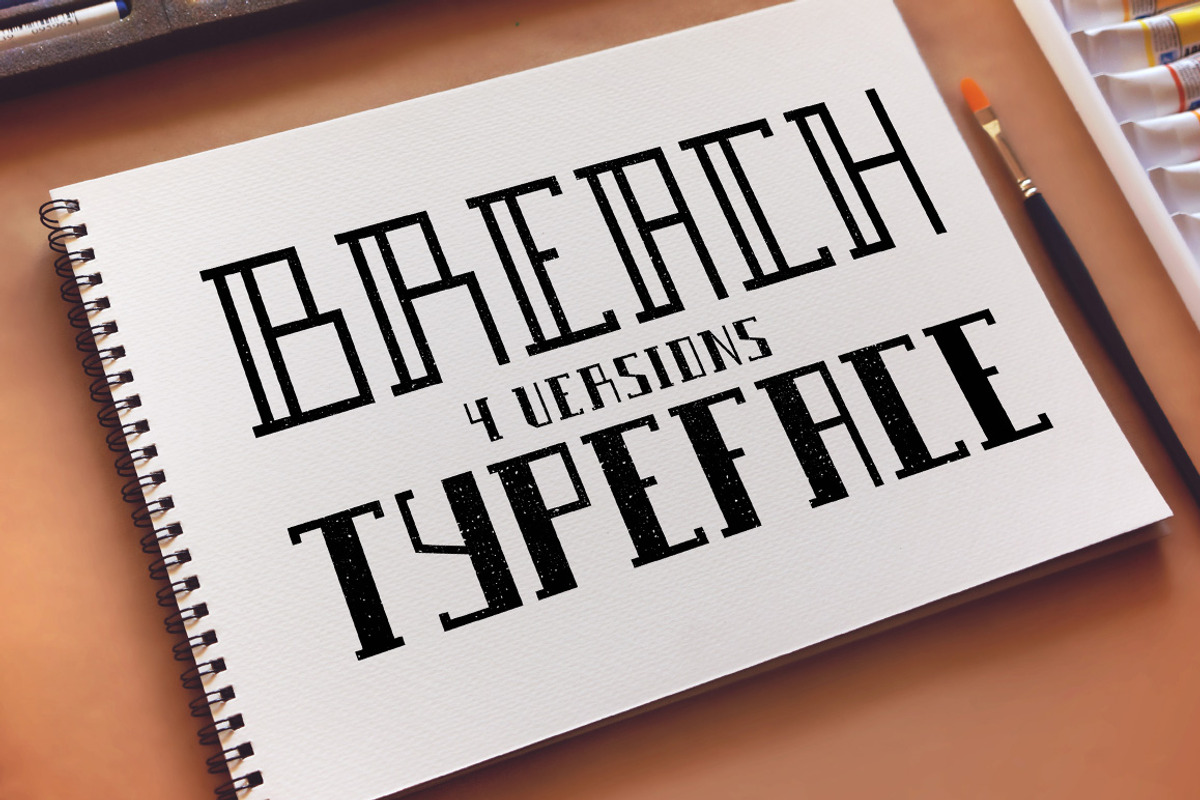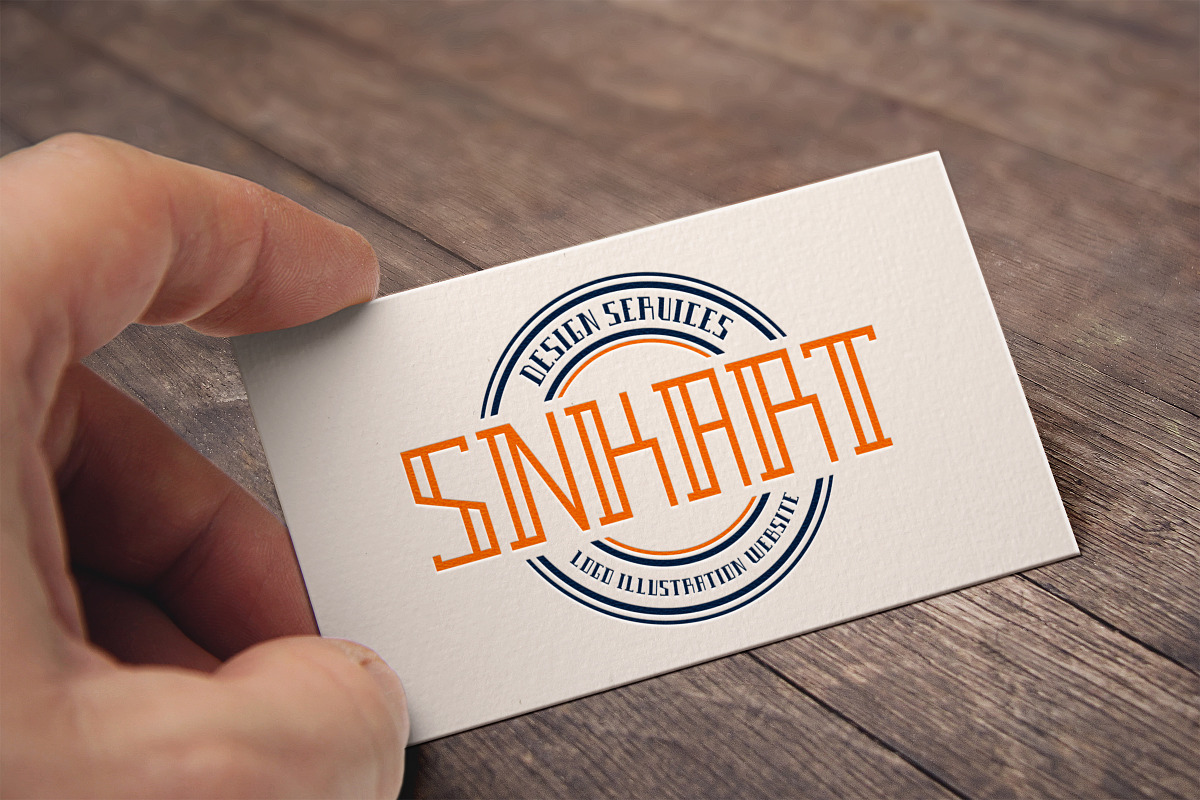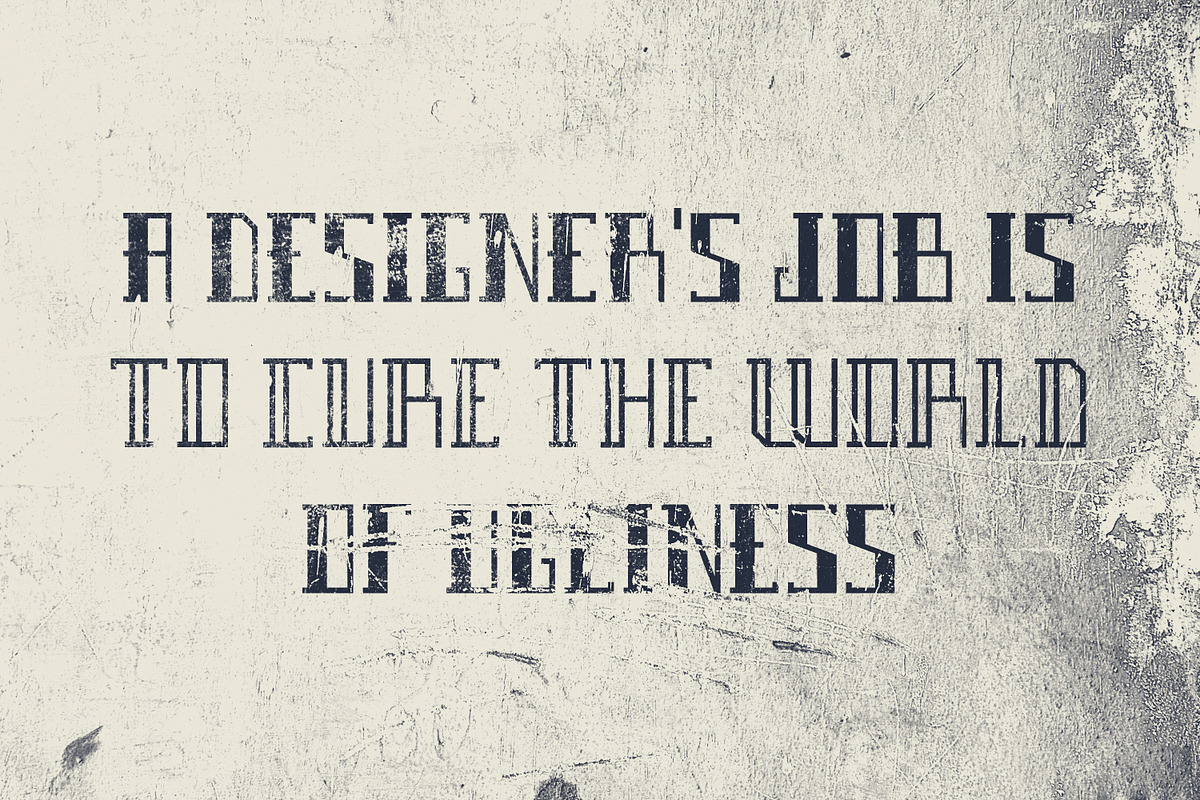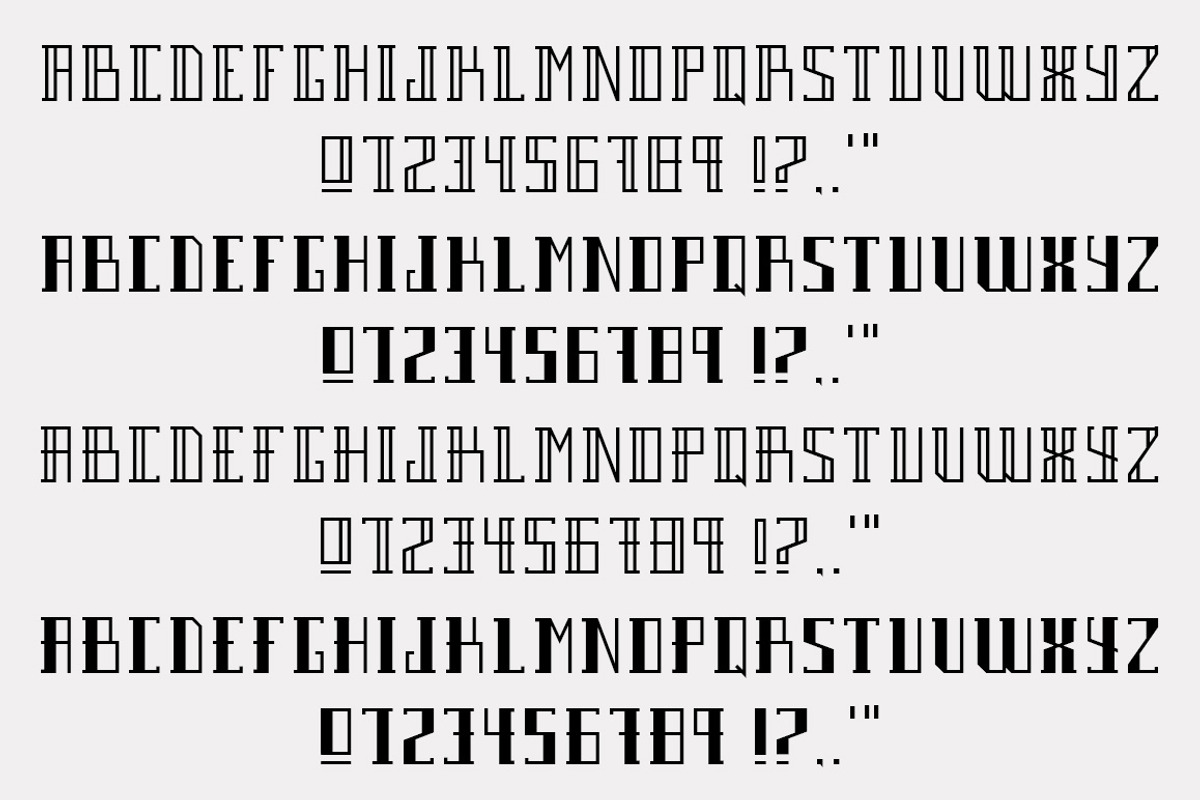
Breach Typeface
Breach Typeface by SNK's is a font selected for branding, posters, packaging, typography.
- The font has uppercase letters, numbers and some of the base use glyphs You will get: 4 .ttf files.
Breach Typeface by SNK's fits naturally into Branding, posters, packaging, typography.